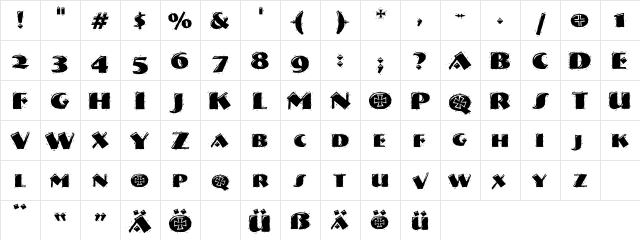
VTNervouzReichDecorated Regular
Design Context for VTNervouzReichDecorated
VTNervouzReichDecorated is a composed and adaptable typeface that performs quietly and consistently across a wide range of design contexts.